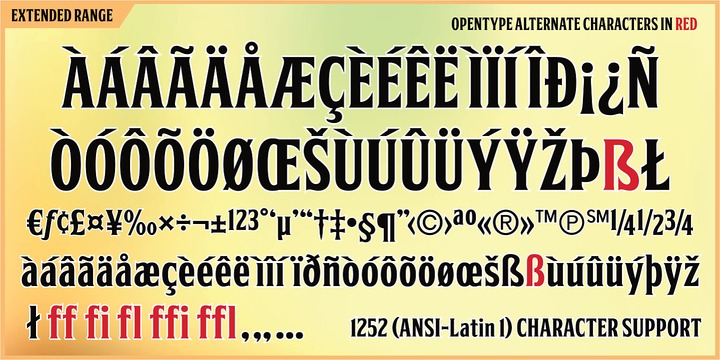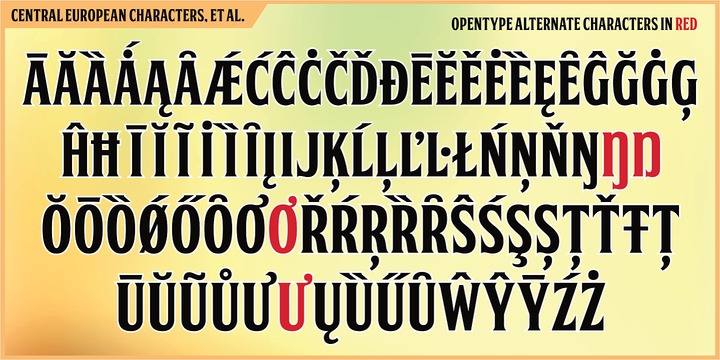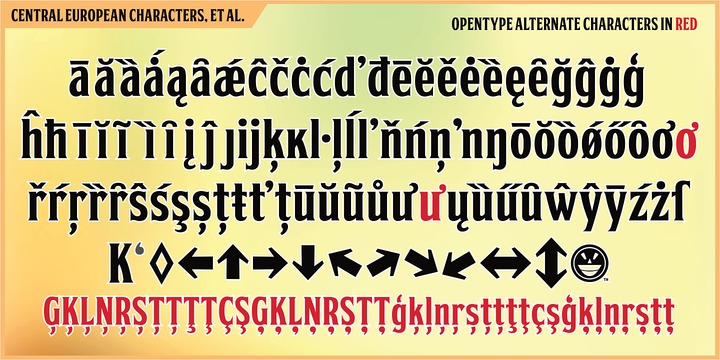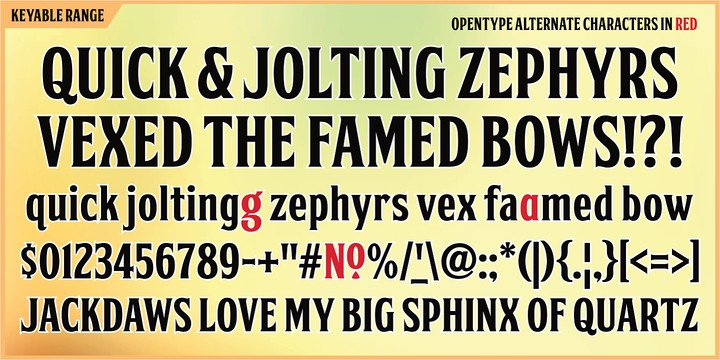
FTY Skorzhen Font
At one time very recently, serifs were lost to the design sinners of the world. Now see them found again. Unearthed and rediscovered. Retribution is not far off. We have been unchained from the belief that gothics have provided us no way back from a lack of variety and interest.